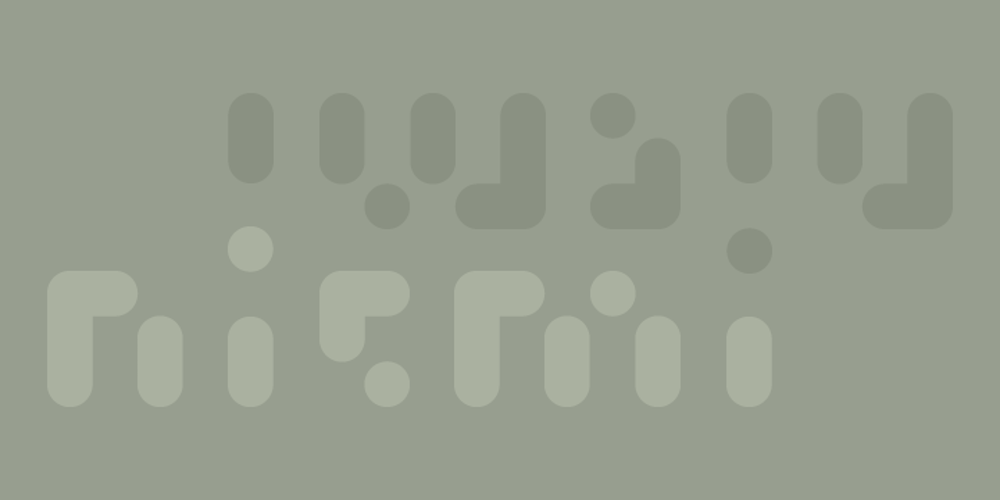
Niemi
Niemi font
Niemi Font Family was designed by Thomas Johnson Quinn and published by Blank Is The New Black. Niemi contains 1 styles and family package options. Niemi is a continuation of the work started with Versteeg. Where Versteeg was separated into individual circles, Huet connects these circles and adds a sharp geometric style. This creates a nice juxtaposition between the rounded ends, and sharp corners.